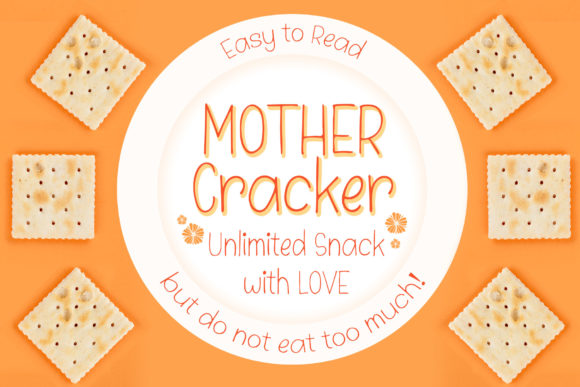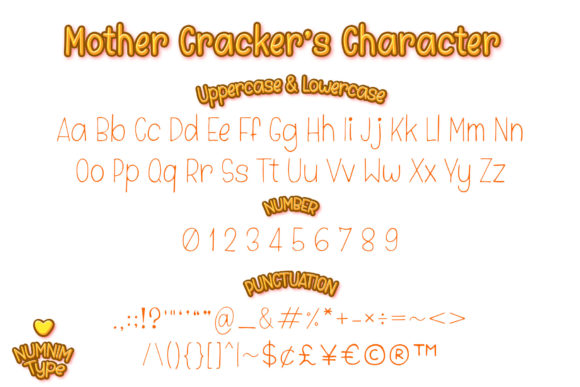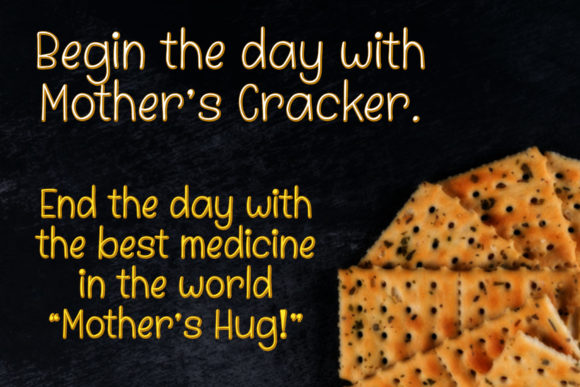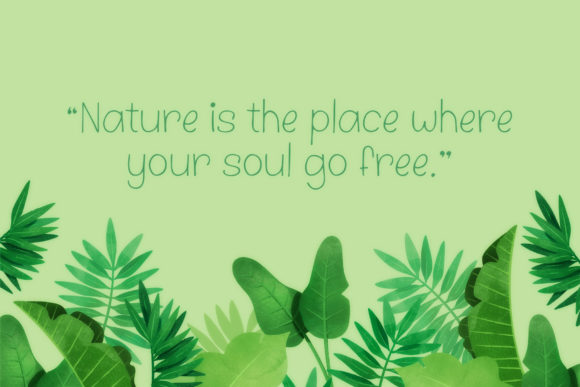
Introduction to Mother Cracker Font
Mother Cracker is a cute and casual handwritten font with an incredibly friendly feel.
Key Features of Mother Cracker Font